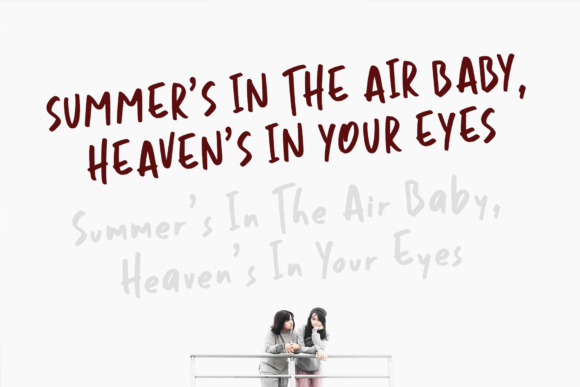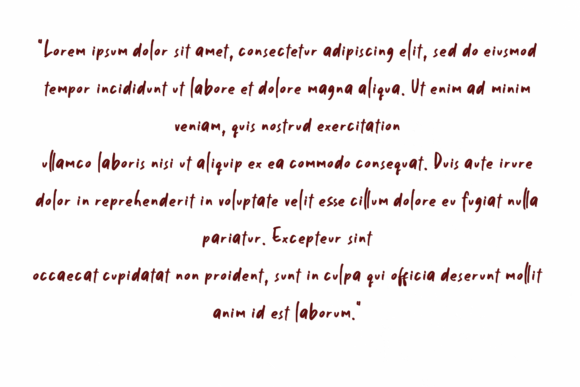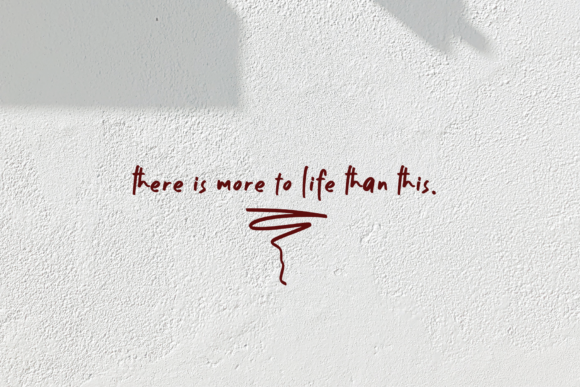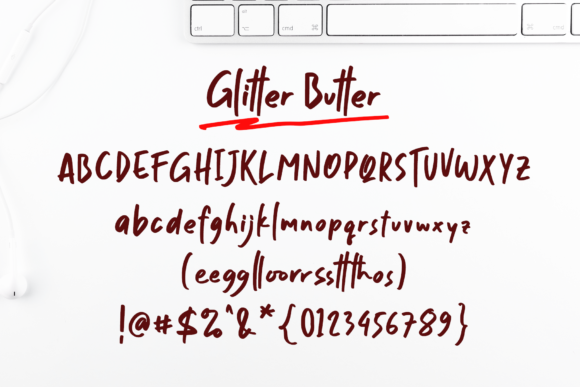
Introduction to Glitter Butter Font
Glitter Butter is a simple, friendly and cute handwritten font.
No matter the topic, this font will be an incredibly asset to your fontsโ library, as it has the potential to elevate any creation Glitter Butter is PUA encoded which means you can access all of the glyphs and swashes with ease.